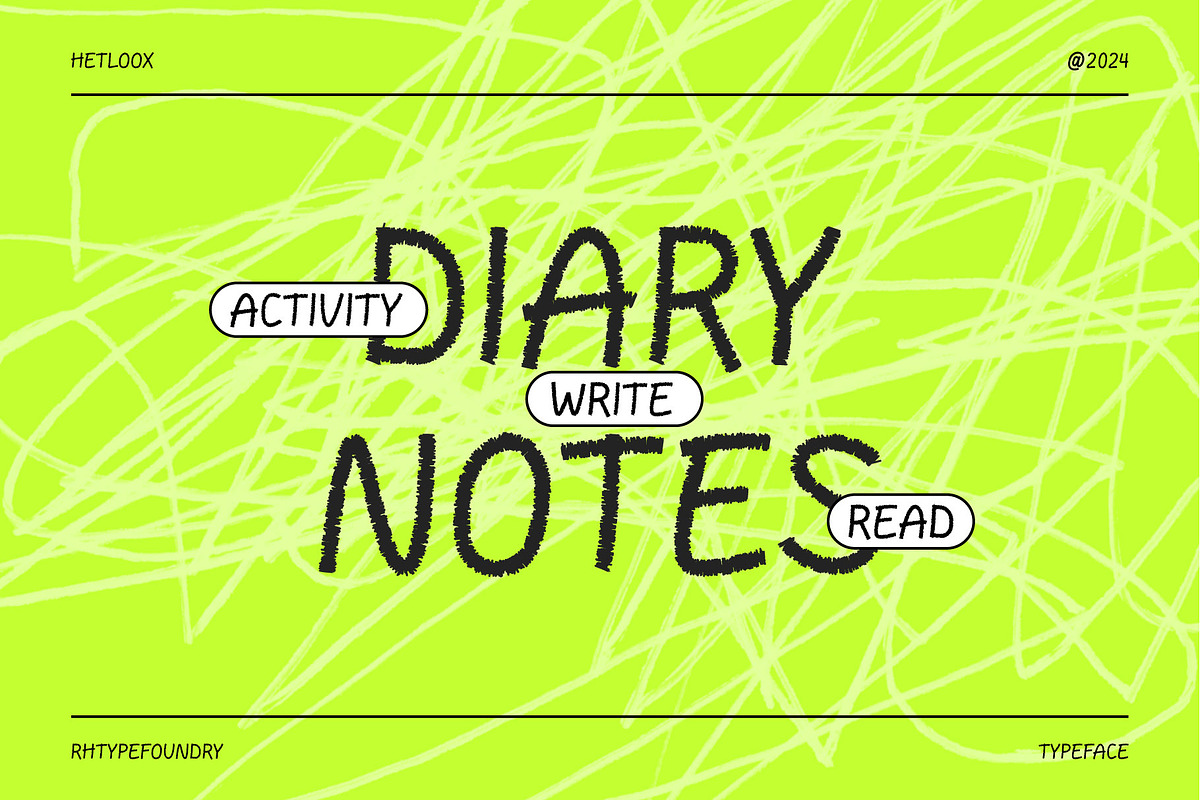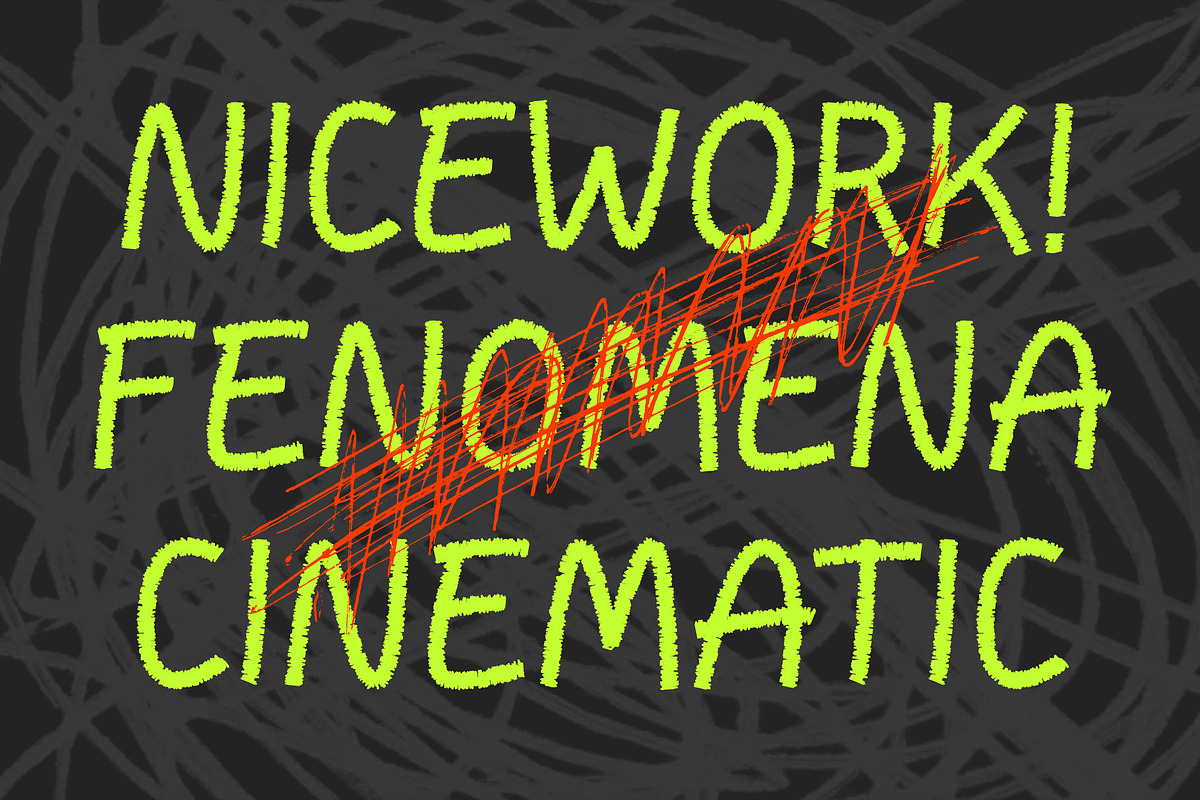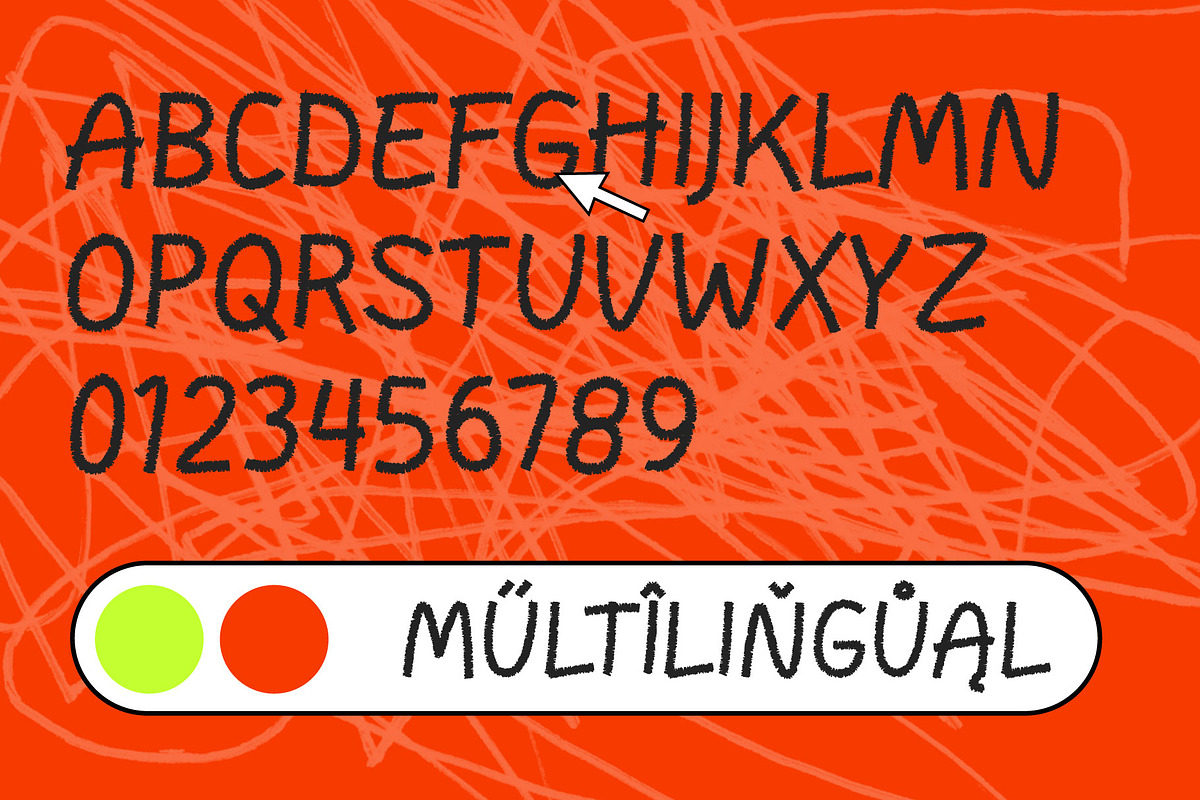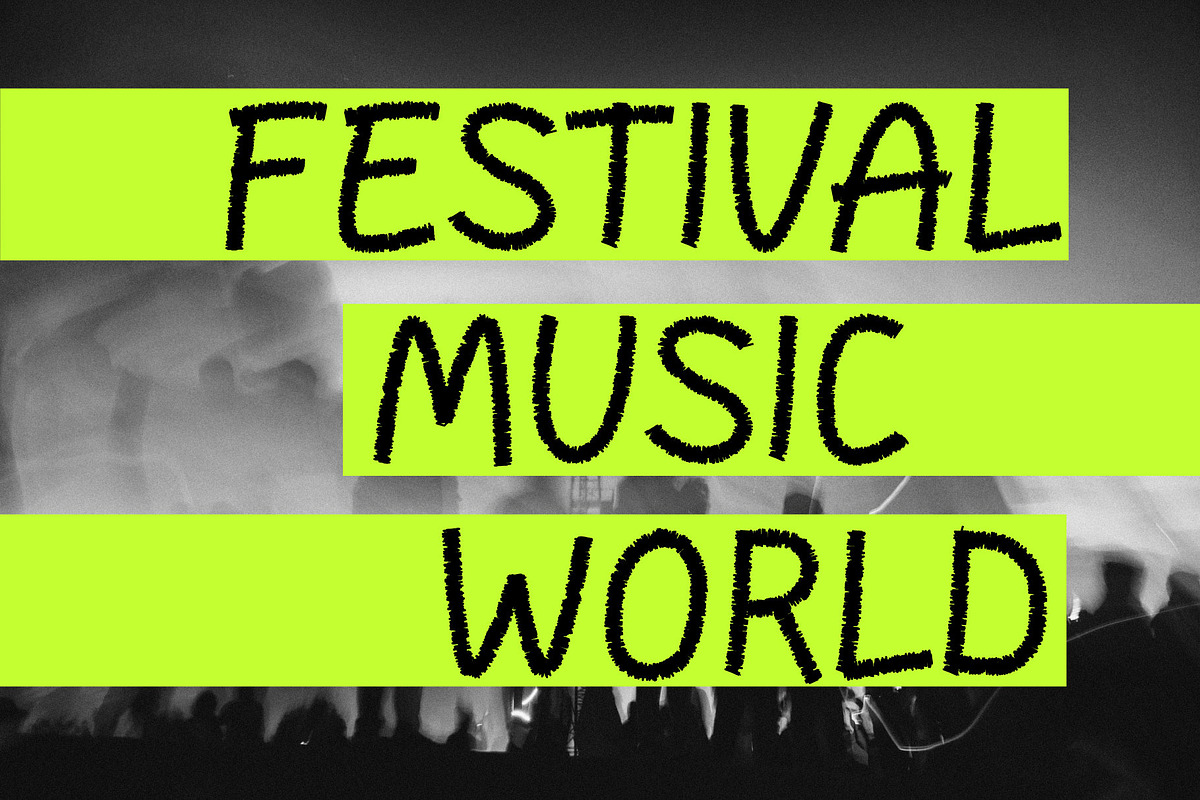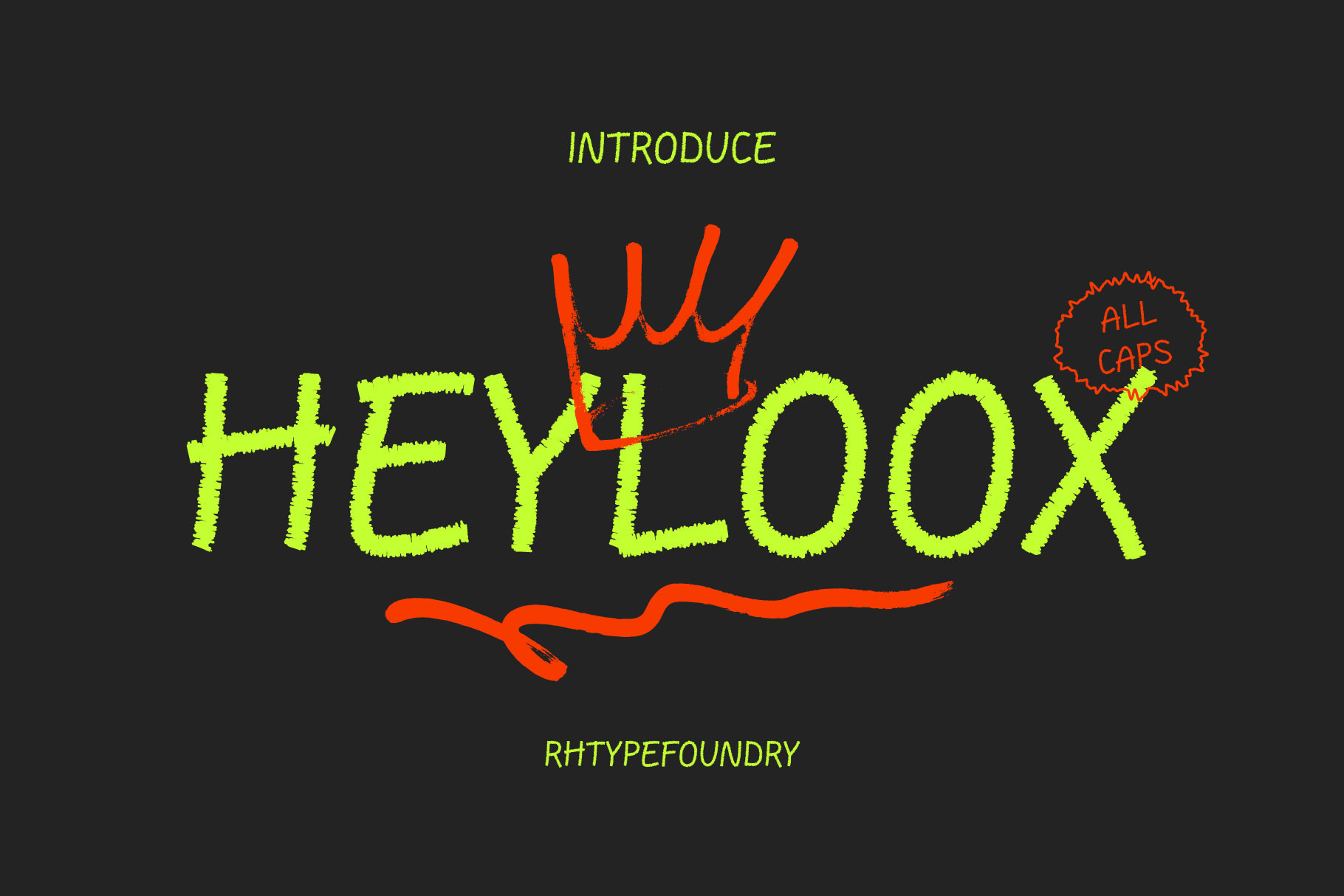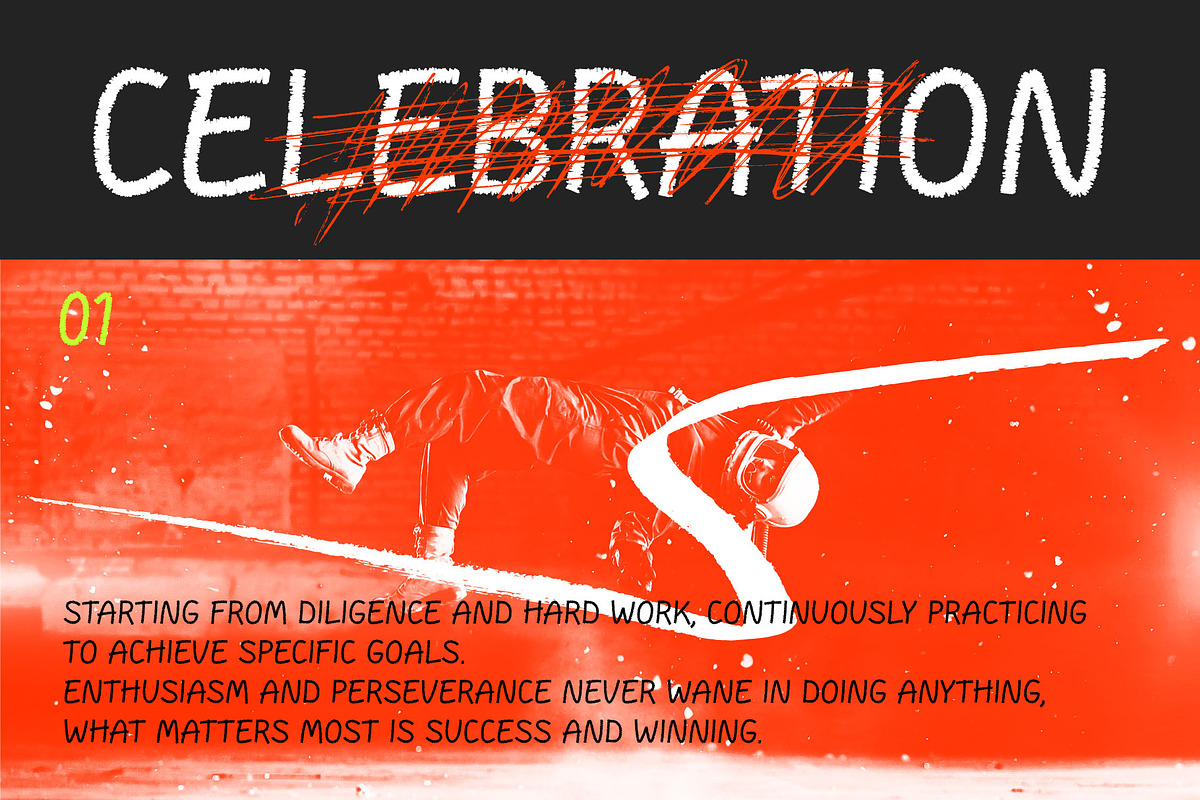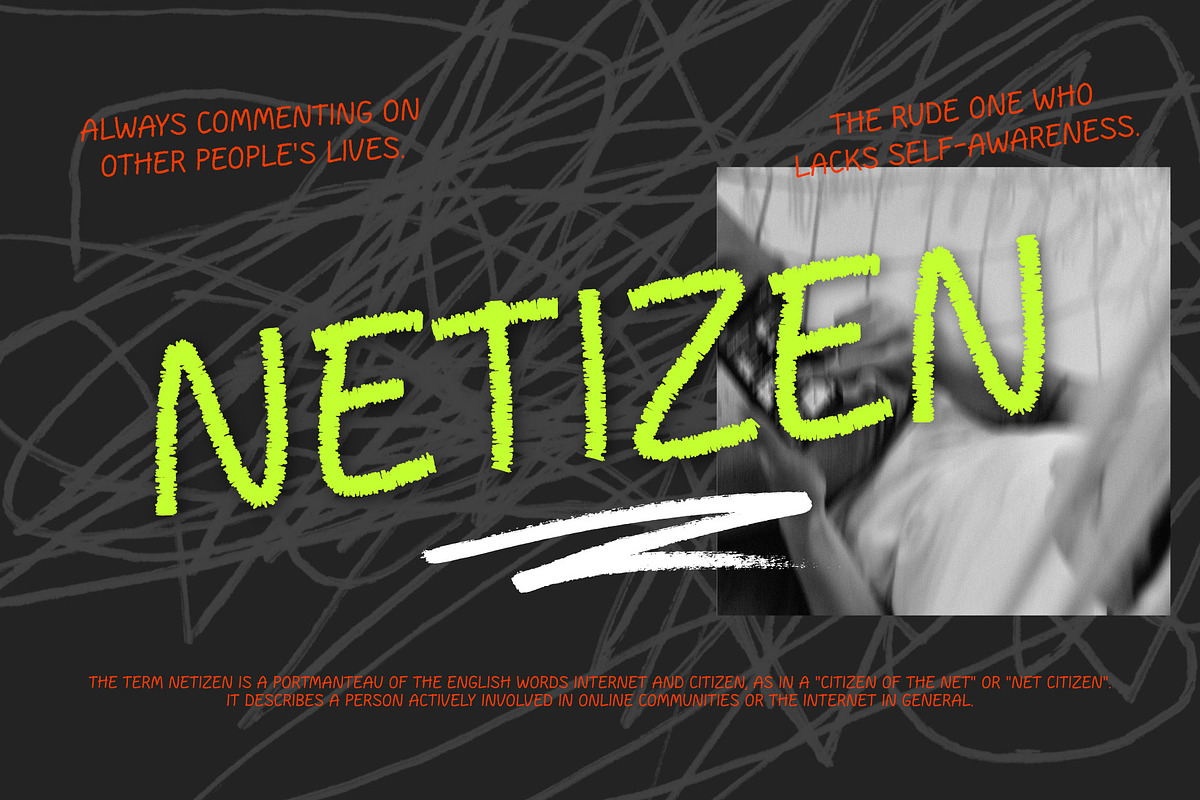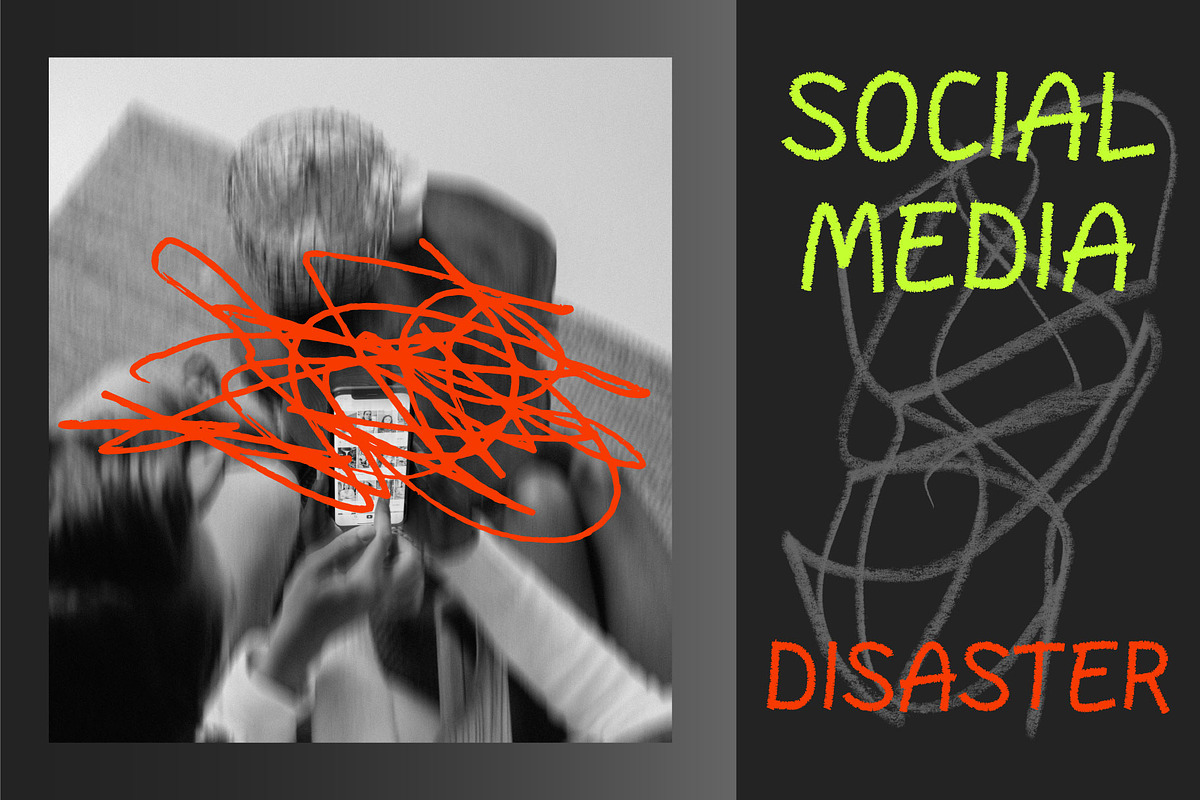
Heyloox Font
The Heyloox brush font is created with love, uniqueness, and appeal. The lines forming the letters appear more natural, with an abstract and bold style. It is suitable for headlines, posters, logos, and branding.